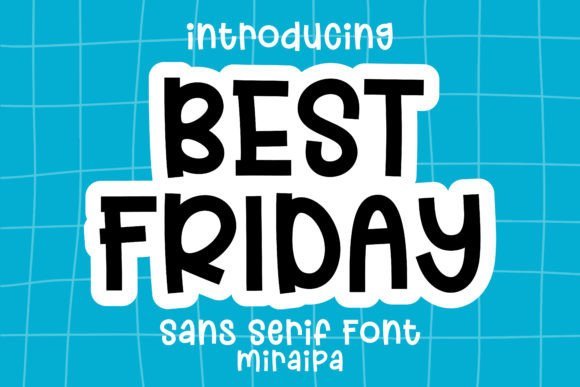
Bring a Touch of Whimsy to Your Designs
Have you ever found yourself staring at a blank page, waiting for that spark of creativity to ignite? For many designers, it’s those moments of inspiration that lead to truly memorable projects. And sometimes, all it takes is the right font to bring your vision to life.
That’s where the Best Friday Font comes in – a playful, handwritten sans serif font designed to add a friendly touch to your DIY projects. Whether you’re crafting Easter invitations, designing a wedding decoration, or creating a fun social media post, this font is the perfect addition to your fonts library. With its versatility and charm, the Best Friday Font is a valuable asset for any designer looking to add a little personality to their work.
Best Friday Font Key Features
- Unique Characteristics: Best Friday Font features a unique, modern design with a bold and playful feel, making it ideal for use in creative and artistic projects.
Best Friday Font Review
When I first laid eyes on the Best Friday Font, I was immediately drawn to its playful, energetic vibe ✨. The font’s rounded edges and whimsical feel are perfect for creating a carefree, weekend-inspired atmosphere. I love how the font’s boldness doesn’t overwhelm the text, making it great for use in headings and titles.
One of the standout features of Best Friday Font is its versatility ✨. It’s suitable for a wide range of projects, from social media graphics to posters and flyers. The font also comes in a variety of weights, allowing you to customize the look and feel to suit your needs.
While Best Friday Font has its strengths, there are a few limitations to consider ⚠️:
- Some users may find the font’s playfulness too over-the-top, making it difficult to use in more formal settings.
- The font’s rounded edges can sometimes make it difficult to read, particularly in smaller sizes.
Overall, I think Best Friday Font is a great addition to any designer’s toolkit. Its unique personality and versatility make it a great choice for projects that need a fun, energetic vibe. Just be mindful of the font’s limitations, and you’ll be well on your way to creating some amazing designs!
The Best Friday Font is perfect for creating fun and playful designs, such as social media graphics, party invitations, and promotional materials. It’s also great for adding a touch of whimsy to your presentations, reports, and documents.